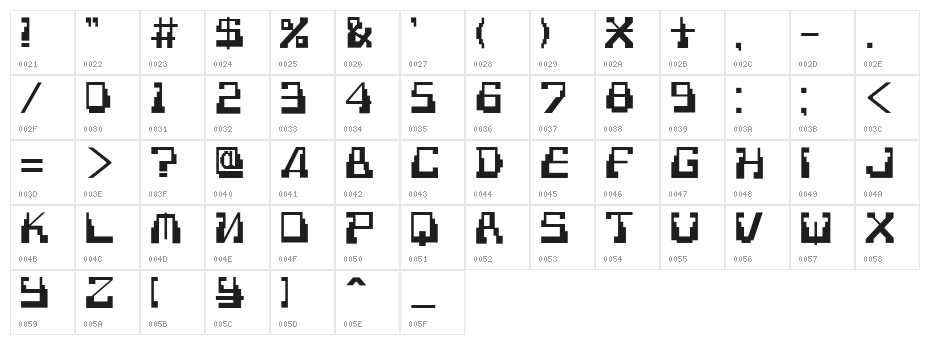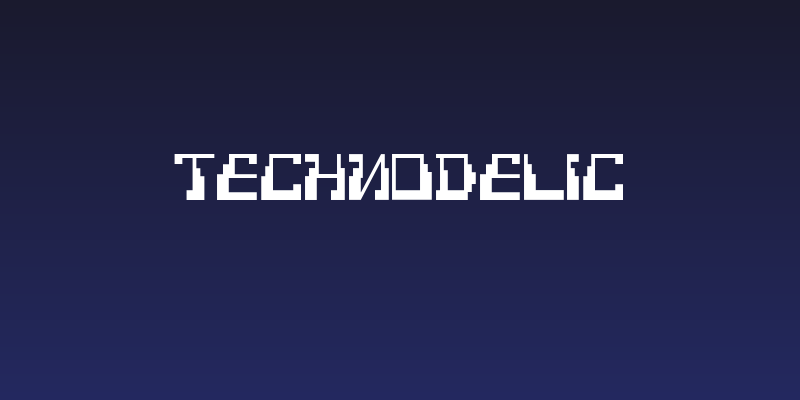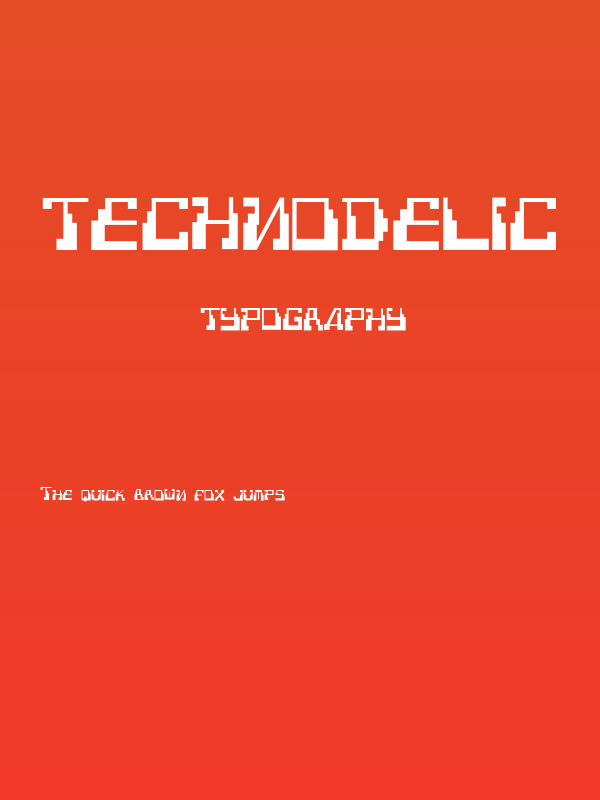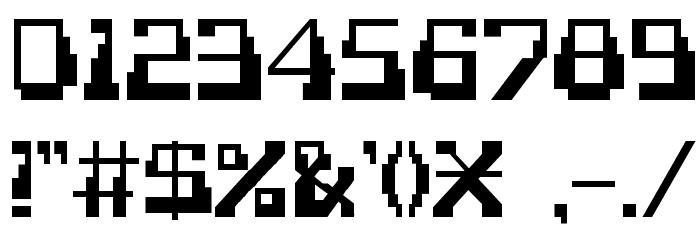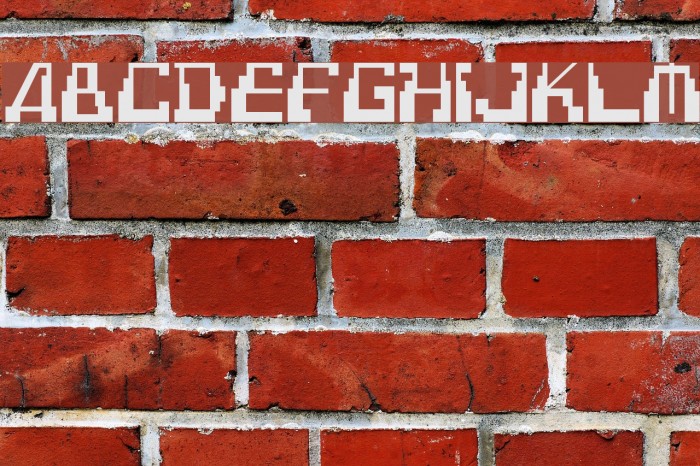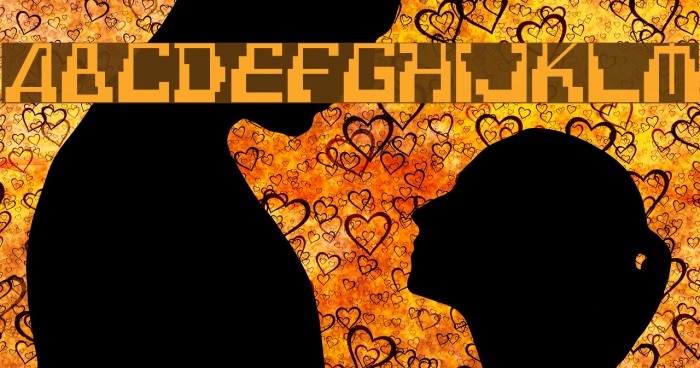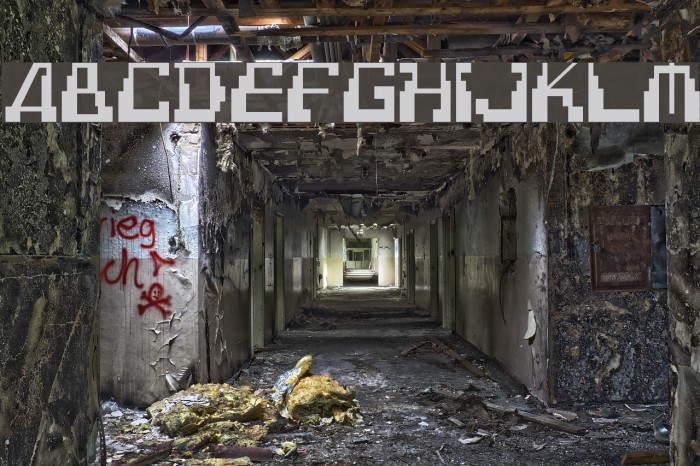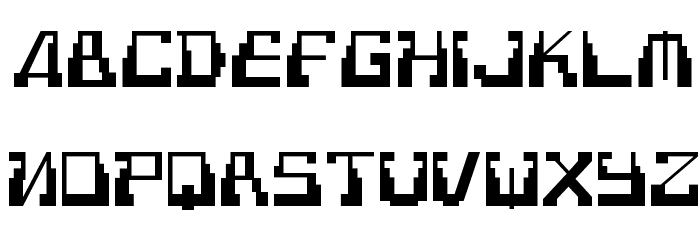
Technodelic Font
Technodelic Description
This font features a bold, geometric style with a distinctly digital and futuristic aesthetic. The characters are constructed with sharp angles and blocky shapes, reminiscent of early computer graphics or pixel art. The uppercase and lowercase letters maintain a consistent height, contributing to a uniform appearance. The numbers and special characters follow the same design principles, ensuring a cohesive look across all glyphs. This font's unique style makes it ideal for projects that require a modern, tech-inspired feel.
| Use Case | Logos, Headlines, Digital Art |
| Proposed Projects | Ideal for tech-related branding, video game design, digital art projects, and modern advertising campaigns. |